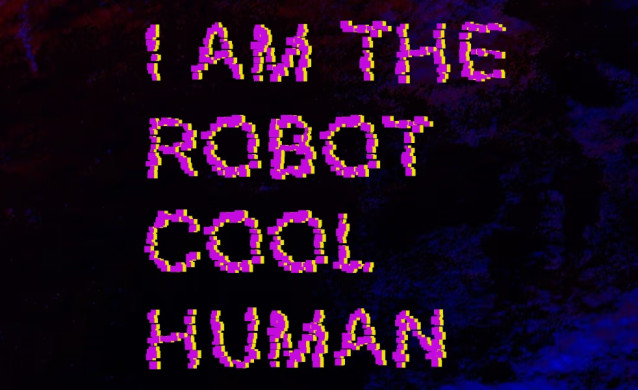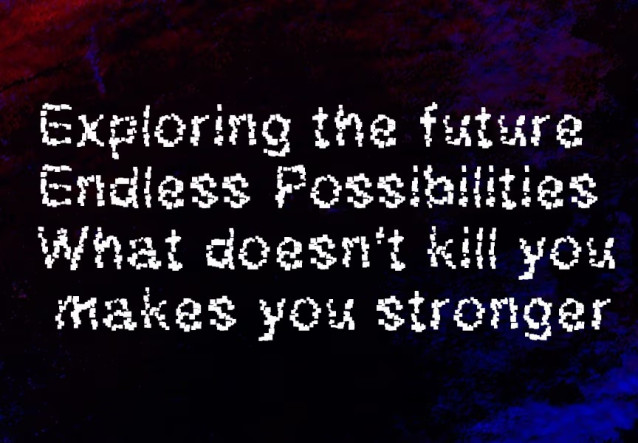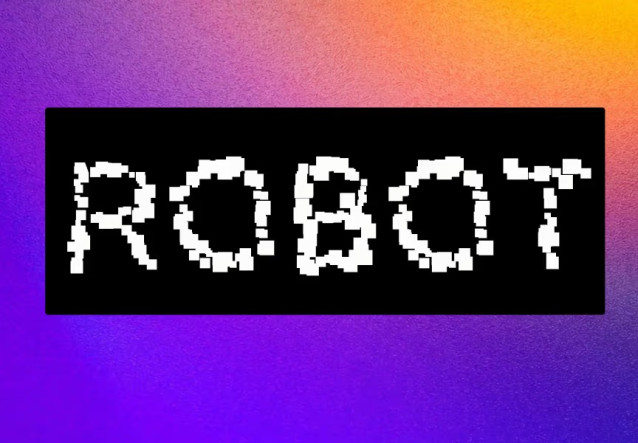
XC Robot Font: These small blocks give a unique visual effect, reminiscent of old digital graphics or a “glitch” (visual error). Overall, the font creates a modern, technological and somewhat rough look, suitable for robot themes or digital elements.
XC Robot Font